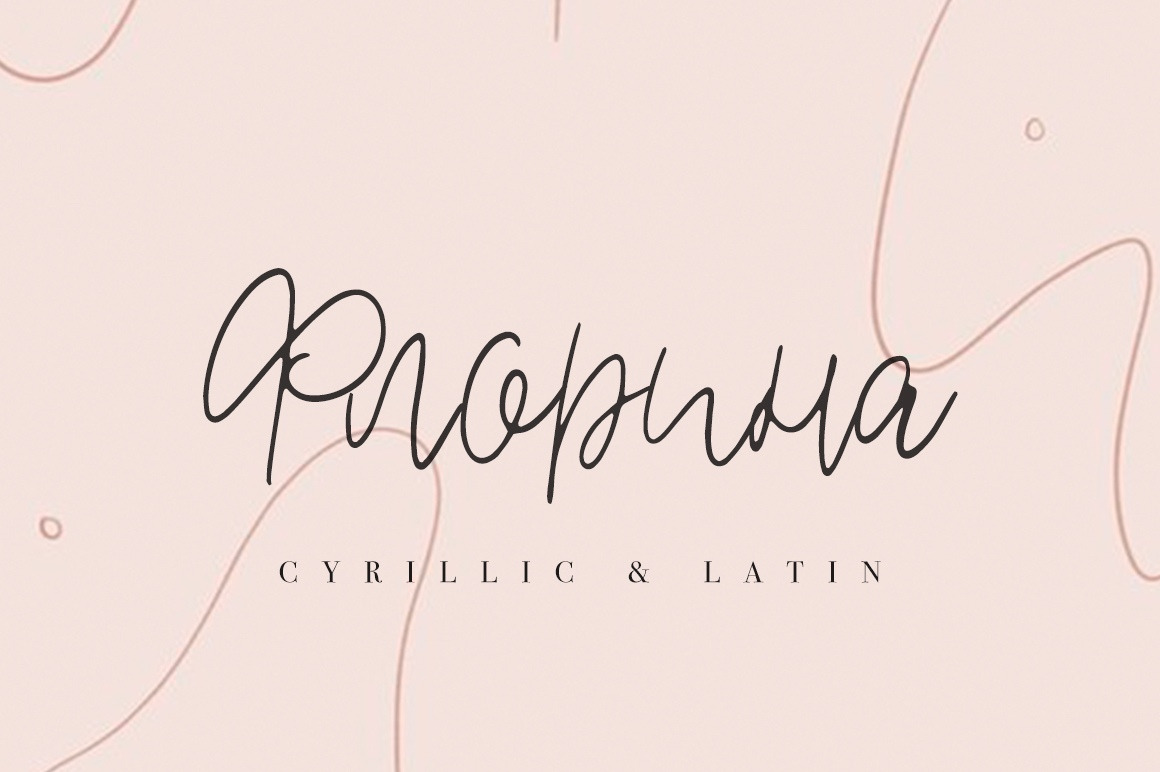
Florina Cyrillic & Latin Font
Florina Cyrillic & Latin Font is perfect for floral branding, botanical publications, feminine product packaging, garden center marketing, natural cosmetics, wedding stationery, organic food labels, eco-friendly campaigns, spa treatments, and nature-inspired design projects.
What makes Florina Cyrillic & Latin Font exciting is its organic elegance that beautifully captures the delicate essence of botanical beauty through graceful letterforms. This enchanting typeface combines flowing curves with natural character variations, creating a harmonious blend that evokes blooming gardens and natural femininity. The font's gentle sophistication and bilingual capabilities make it perfect for brands celebrating nature, beauty, and authentic cultural expression across diverse international markets.
The Florina Cyrillic & Latin Font family includes Regular, Bold, Light, Medium, Italic, Script, Condensed, and Decorative variants. Each style maintains the font's floral character while providing comprehensive design flexibility for romantic brand identities and nature-inspired creative applications across multiple language systems.
Blossom into beautiful typography with this exceptional bilingual typeface that celebrates natural elegance through carefully crafted letterforms. Florina Cyrillic & Latin Font Free Download offers designers access to premium botanical typography that communicates organic beauty, feminine grace, and cultural authenticity across diverse creative projects.
Whether you're developing natural beauty brands, creating botanical publications, designing eco-friendly packaging, or crafting romantic marketing materials, Florina Cyrillic & Latin Font delivers unparalleled organic charm and cross-cultural appeal. Its versatile nature makes it perfect for florists, organic brands, wellness companies, and lifestyle businesses seeking authentic natural representation.
The font's flowing letterforms and delicate details create an intimate reading experience that connects audiences with nature's inherent beauty. Each character has been lovingly designed to preserve the unique characteristics of both alphabetic systems while maintaining seamless visual harmony and professional presentation quality.
This comprehensive typeface supports extensive international language coverage, making it ideal for global natural beauty brands and eco-conscious companies operating across Eastern European and Western markets. The font excels in multilingual packaging, international marketing campaigns, and cross-cultural botanical publications.
Transform your nature-inspired projects with Florina Cyrillic & Latin Font Free Download and discover how organic typography can enhance emotional connection with environmentally conscious audiences. This remarkable typeface captures the essence of natural beauty while providing the versatility needed for comprehensive international brand communication.
Embrace the power of botanical design that blooms across cultures and languages naturally.